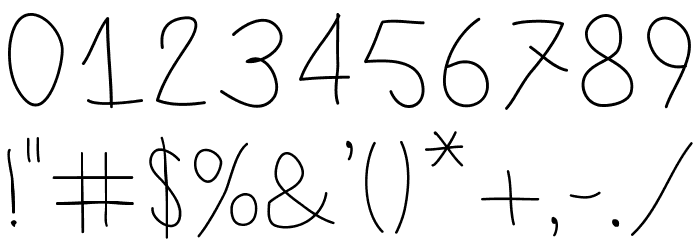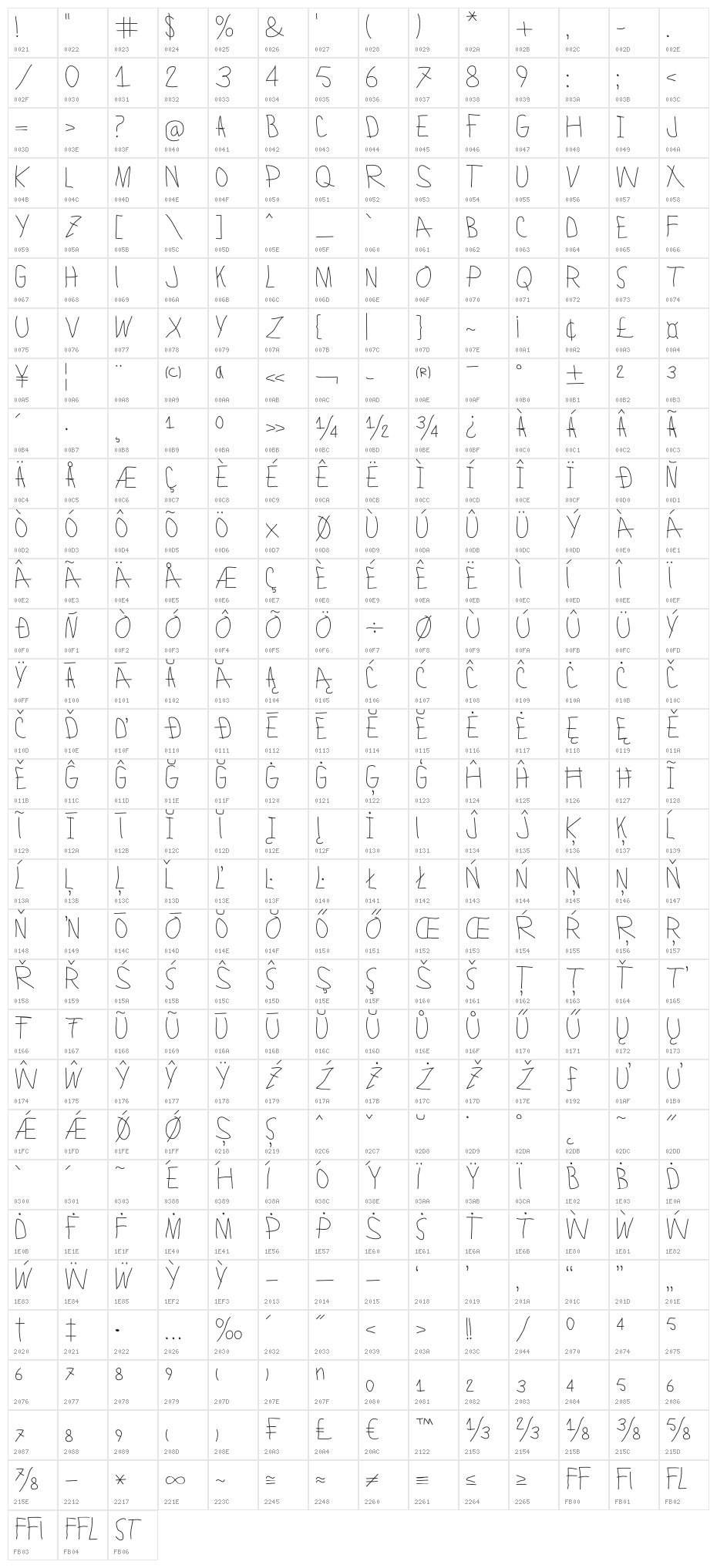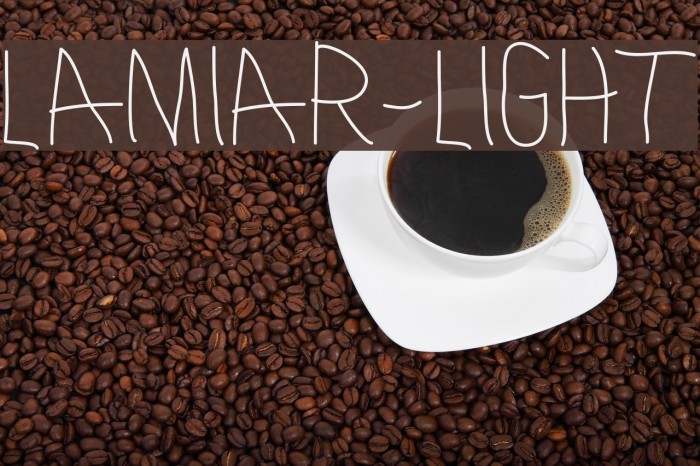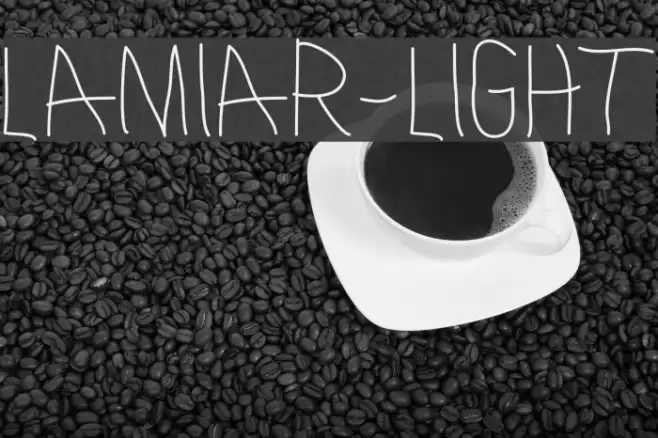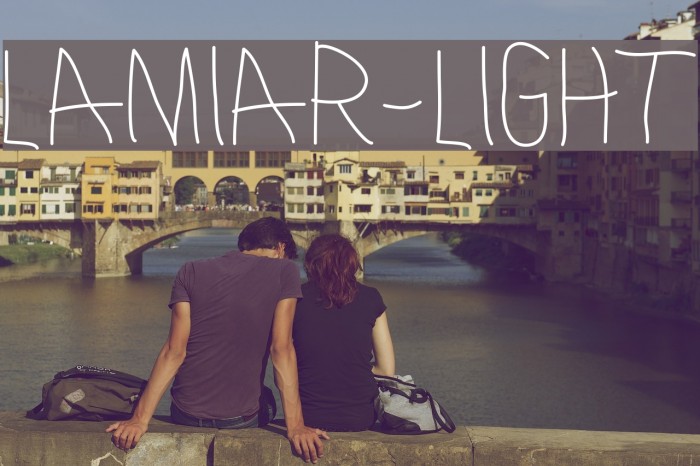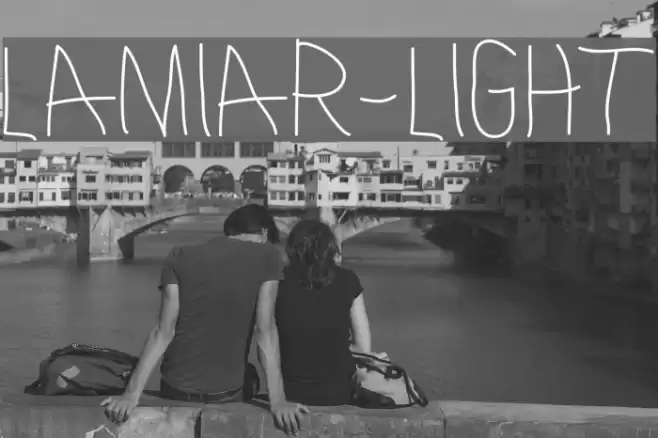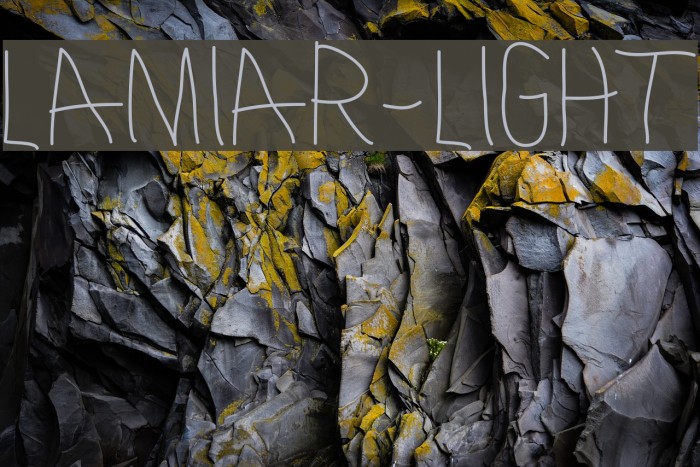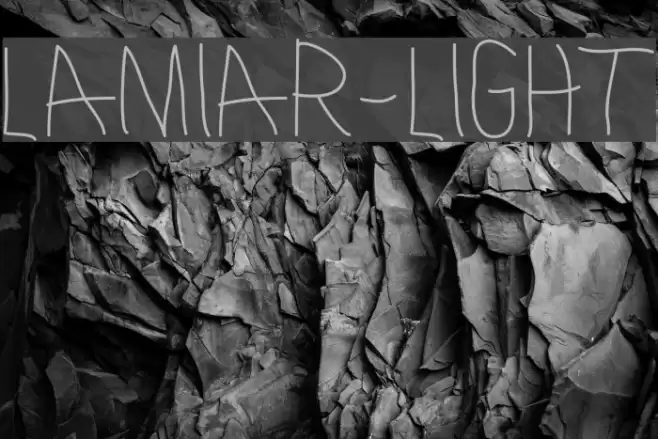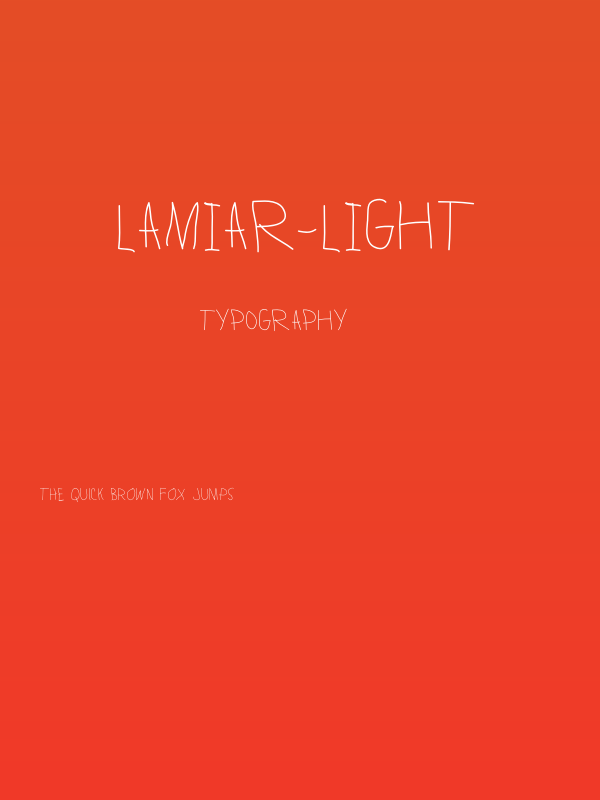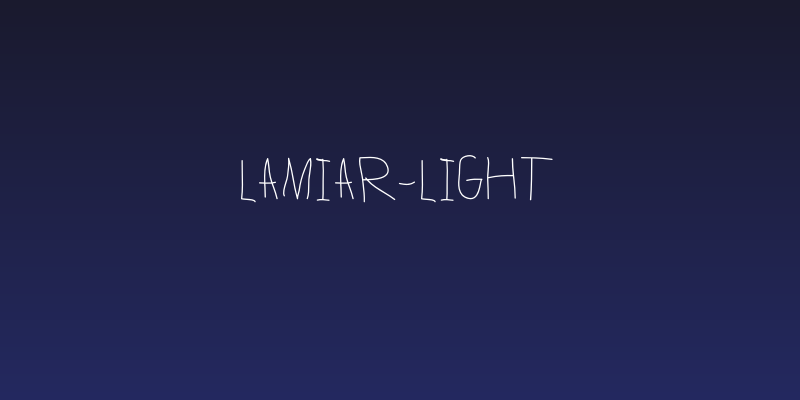
Lamiar-Light Font
Lamiar-Light Description
This font features a playful and casual handwritten style, characterized by its thin, slightly irregular strokes that give it a whimsical and informal appearance. The letters are tall and narrow, with a consistent height across both uppercase and lowercase characters. The spacing between characters is relatively wide, enhancing readability while maintaining a relaxed feel. The numerals and special characters follow the same playful aesthetic, making the font suitable for creative and informal projects. Its light weight and airy design make it ideal for conveying a sense of approachability and friendliness.